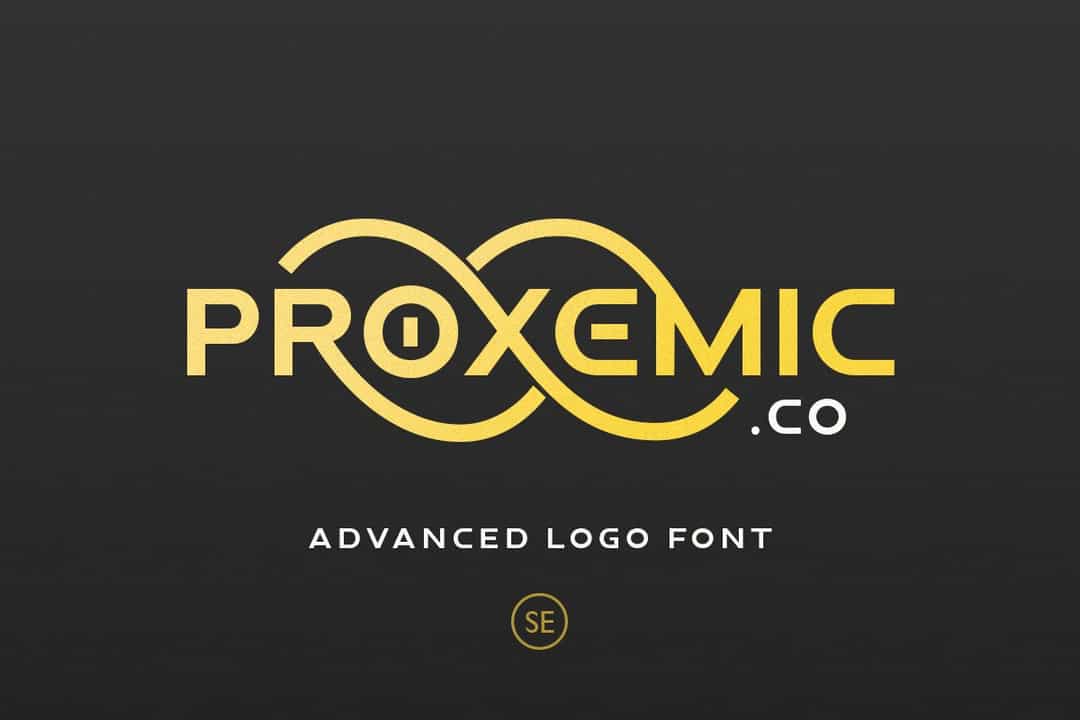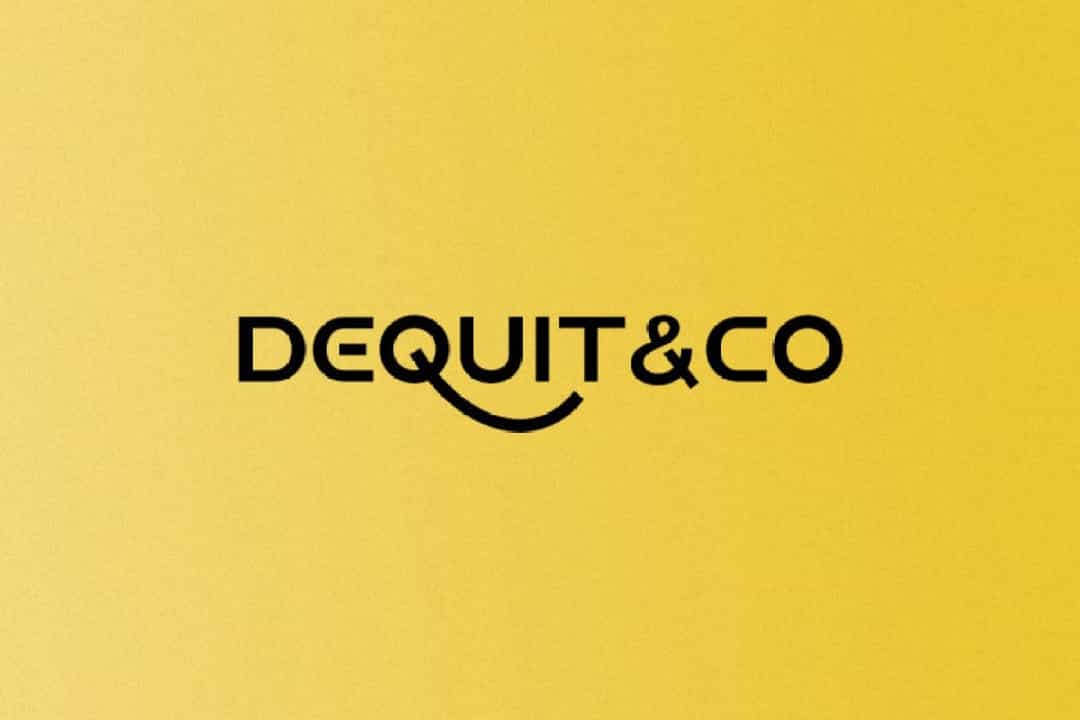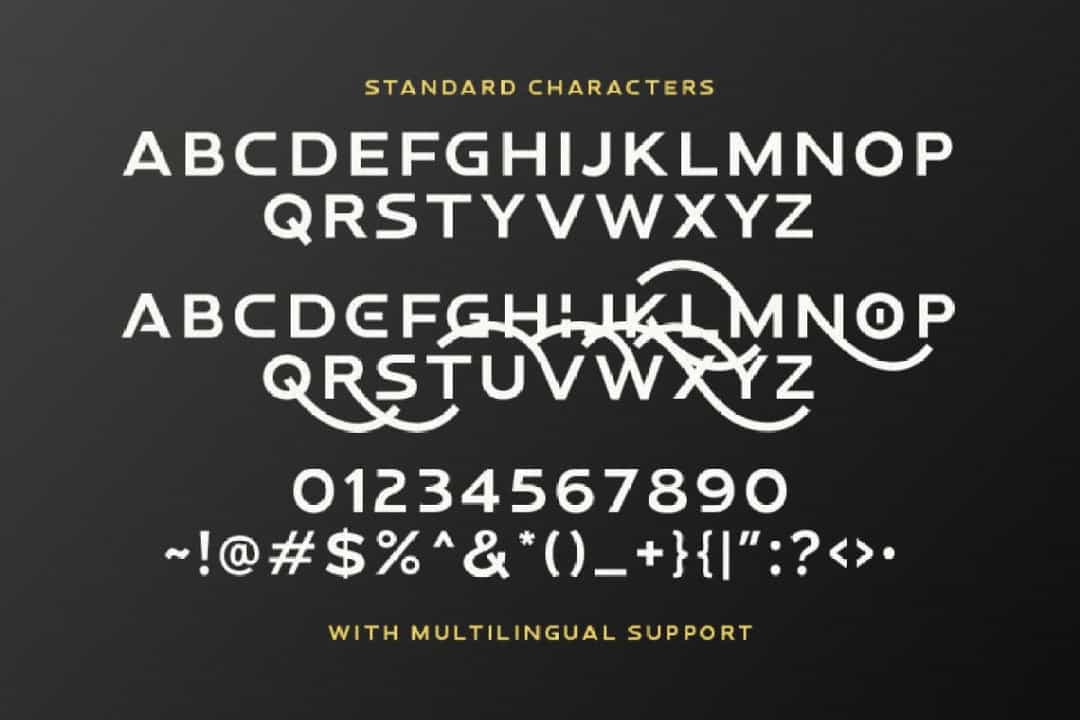
Discover Proxemic Font, part of the Sans Serif Display Logos collection—a versatile and unique font perfect for adding a personal touch to your projects. Download it for free and enjoy crafting designs with style, from invitations to social media posts. This font is available exclusively for personal use, giving you the freedom to create without limits. Unlock your creativity with Proxemic Font today!
Proxemic Font is an eye-catching sans serif font featuring a distinctive lowercase character to make your logo modern and contemporary. By taking only a few simple steps, Proxemic’s unique lowercase character will add beauty and make the process hassle free!